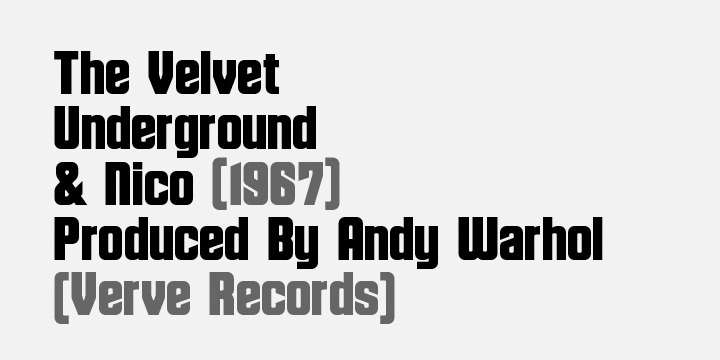
Velvet
Font Family by AE Type
Velvet is a heavy rounded block retro face inspired by the typeset album covers of the protopunk rock band The Velvet Underground.
Stylistically, Velvet's extreme angled terminals exude a sense of tension and irreverence, contrasting the subtle rounded block letter forms.
Features include:
• Precision kerning
• Basic Ligature set including 'f' ligatures (ae, oe, fi, fl, ff, fh, fj, ft, ffi, ffl, ffj, rt)
• Alternate characters (Y, h circumflex, @,